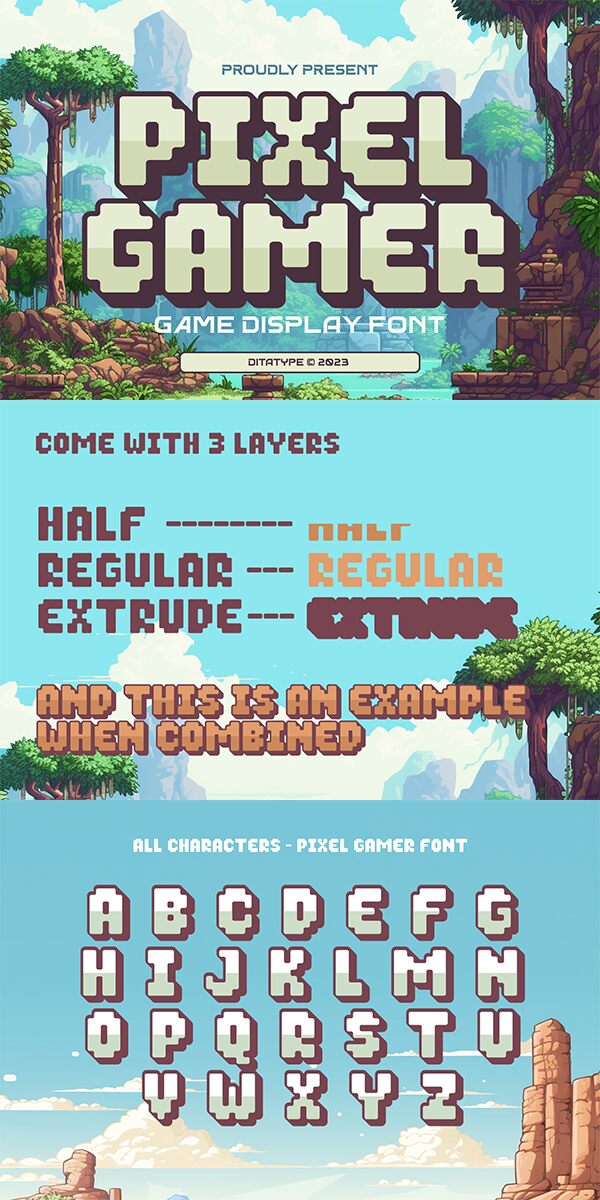
Pixel Gamer font is a bold digital-style display font designed by Ditatype. It depicts geometric pixelated characters, each a blocky piece of detailed art. The retro look of this wide font presents a bit of nostalgia especially due to its video game style commonly found in titles and content made for the display screen.
This free display typeface is perfect for headings, magazine covers, logotypes, logos, advertisements, posters, and t-shirt designs. An interesting gaming twist can be also added to book covers and other printed materials that aim to attract the young generation. Use it for videogame interfaces or 8-bit themed websites as well.